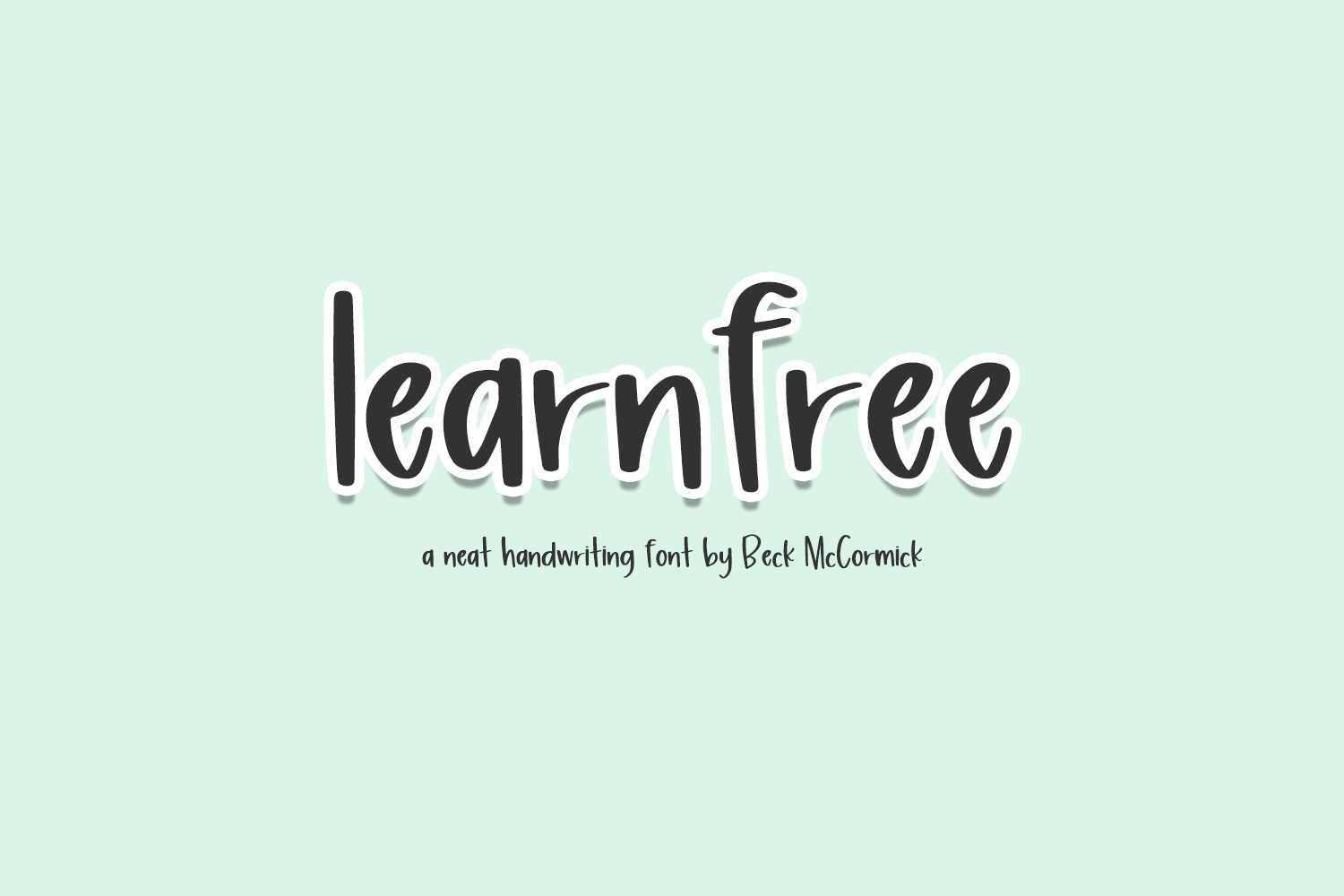
Introducing Learnfree, a cute & quirky printed font.
Learnfree is best for:
- feminine, crafty projects with your Cricut or Silhouette machine, or your SVG design business
- using as a reference to teach handwriting & penmanship skills
- digital planners & apps like Goodnotes
- website design + website accents, blog design
- feminine graphic tee shirt design & other apparel